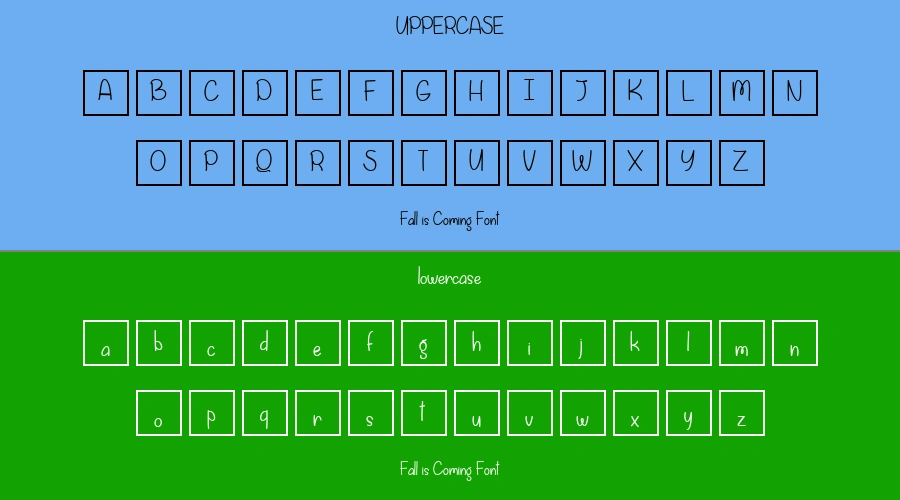
About Fall is Coming Font
Designed with precision, Fall is Coming Font merges consistent strokes with visual appeal in every character. This versatility makes it particularly effective for magazine covers, where integrity and technical mastery directly impact communication quality. Each letterform demonstrates meticulous craftsmanship.
Technical excellence shines through elements like width contrast and traditional figures, enhancing typographic versatility. In identification tags settings, Fall is Coming Font proves its worth through superior large format impact. The thoughtful execution of terminal angle and scholarly tradition ensures professional results.